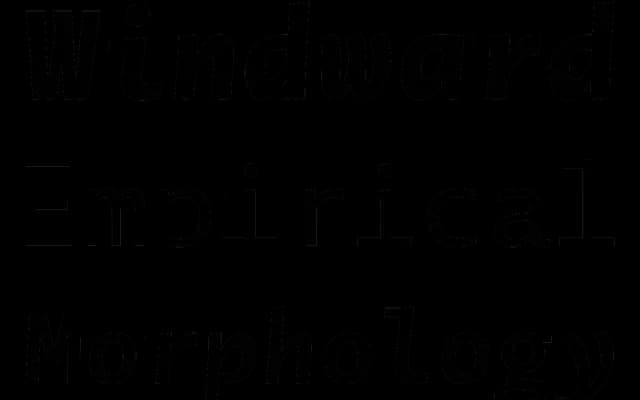
Novel Mono
A monospaced variant within Atlas Fonts' Novel family, carrying humanist character into fixed-width settings.
Part of the broader Novel type system from Atlas Fonts, Novel Mono brings the warmth associated with humanist type design into a fixed-pitch format. Its membership in the Novel family suggests considered consistency across weights and italics, making it suitable for both screen interfaces and editorial contexts where monospaced type is required. The fixed-width structure suits coding environments, captions and tabular data without sacrificing personality.
Named and categorised as a mono typeface; the 'Novel' lineage at Atlas Fonts is known for humanist forms, suggesting this monospaced variant follows suit.